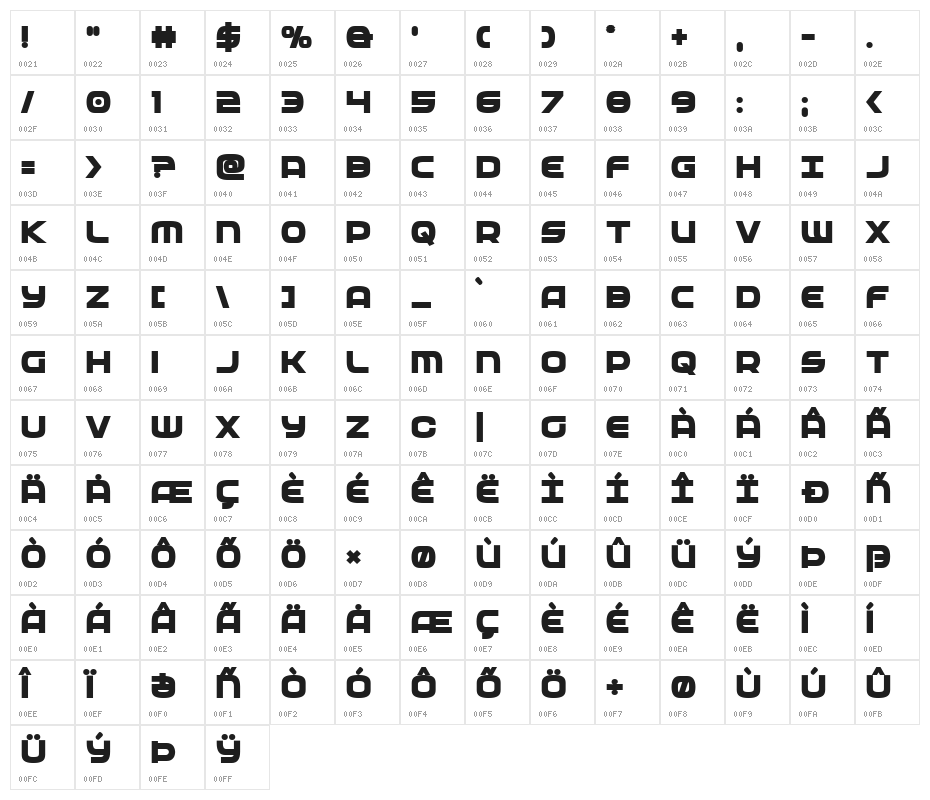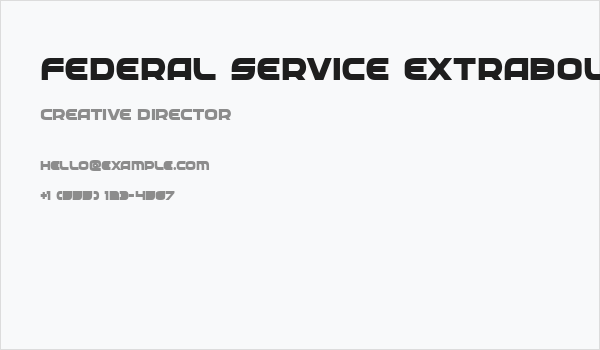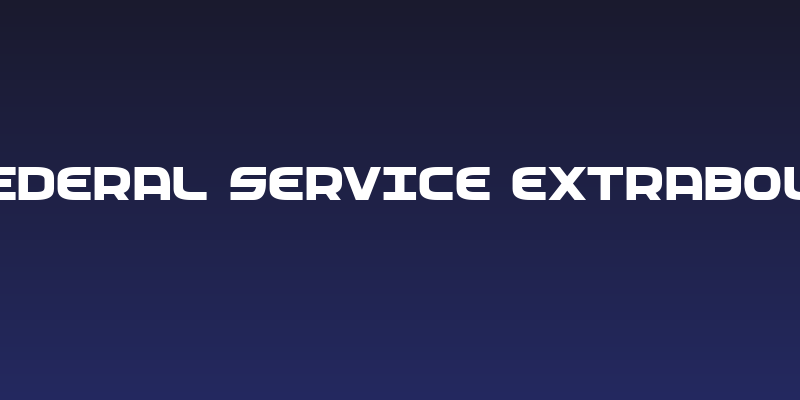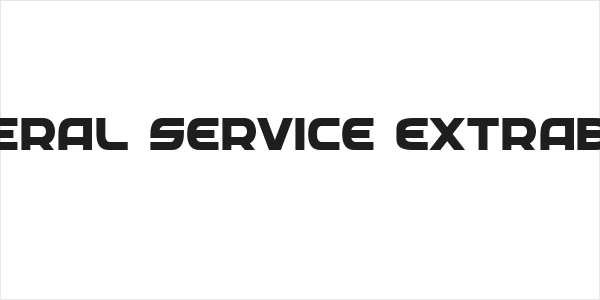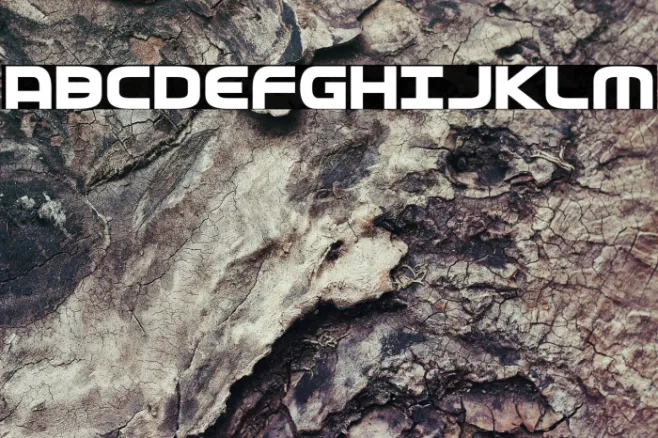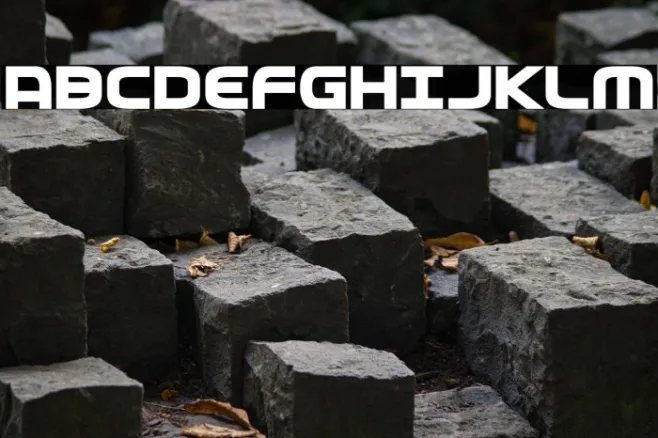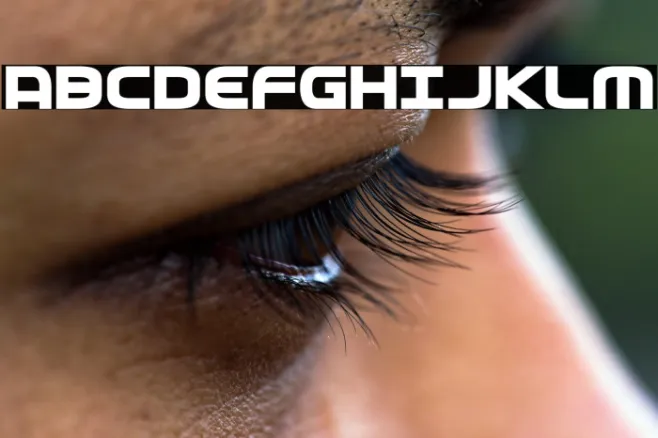
Federal Service ExtraBold Font
Federal Service ExtraBold Description
This font features a bold and modern design with a geometric and slightly futuristic aesthetic. The characters are constructed with thick, uniform strokes that give them a strong presence. The uppercase letters are particularly striking, with a blocky and robust appearance. The lowercase letters maintain the same boldness, ensuring consistency across the typeface. The numerals are equally bold, with a clear and legible design. Special characters are included, matching the overall style with a bold and impactful look. This font is well-suited for projects that require a strong and modern visual impact.
| Proposed Projects | Ideal for branding, headlines, posters, and any design requiring a strong visual impact. |